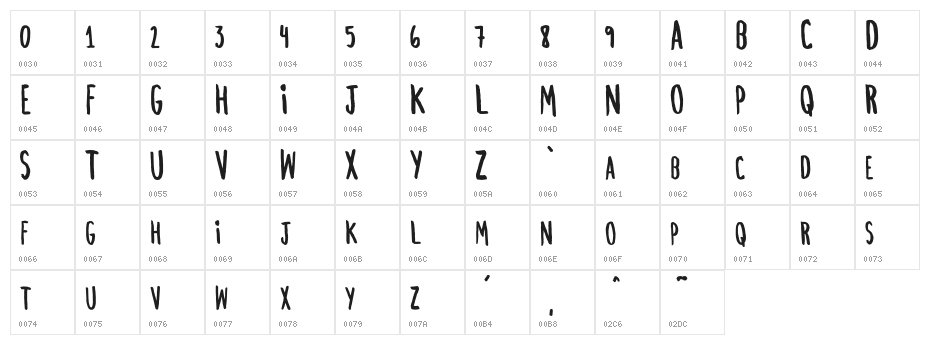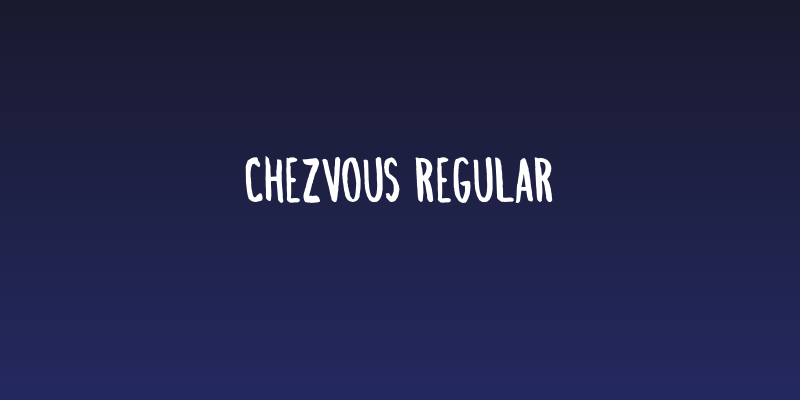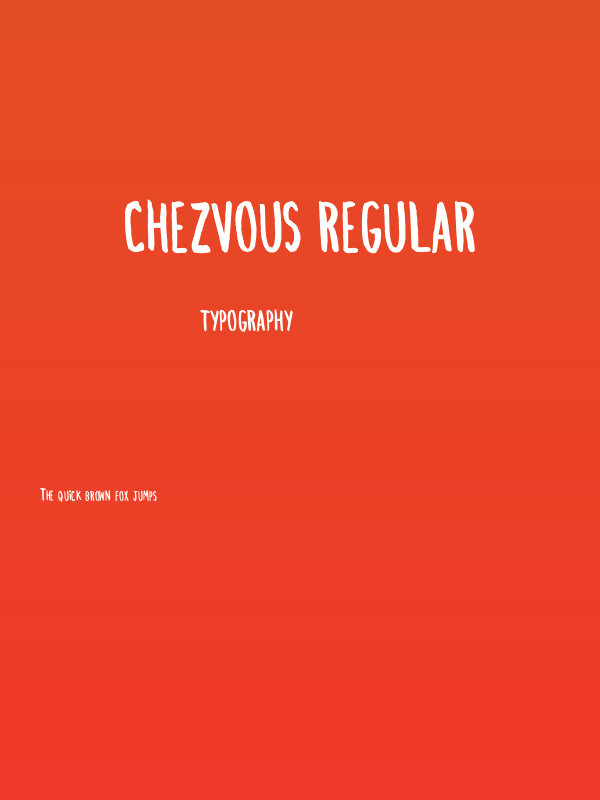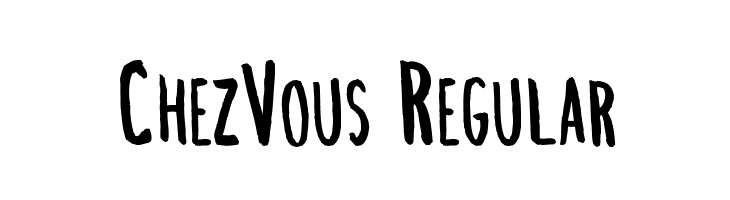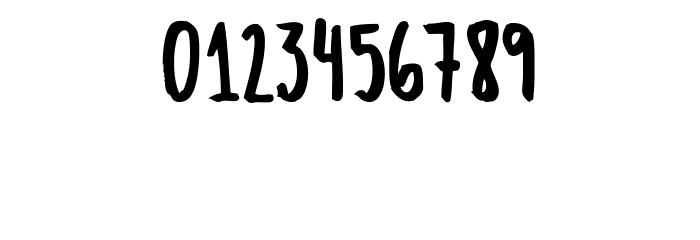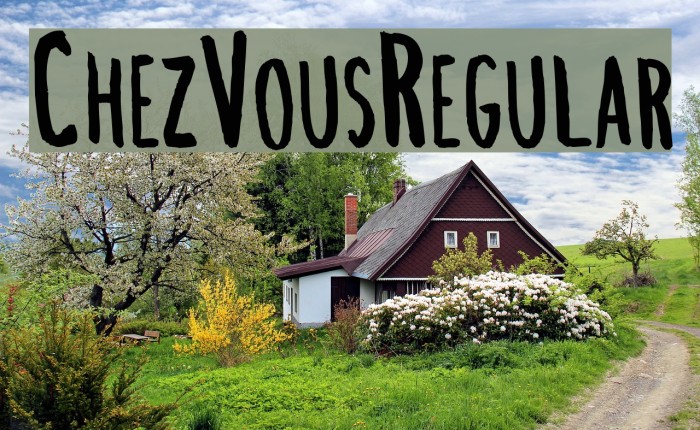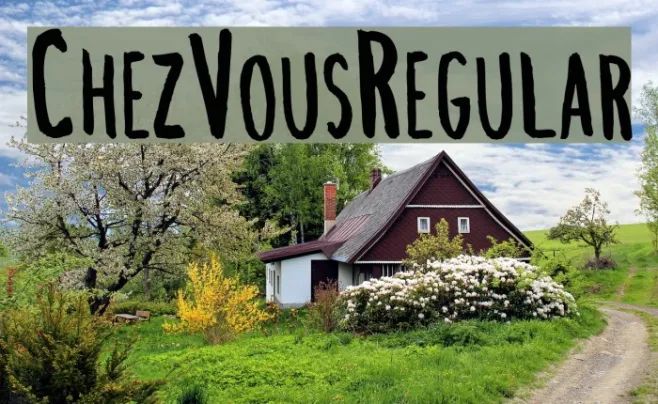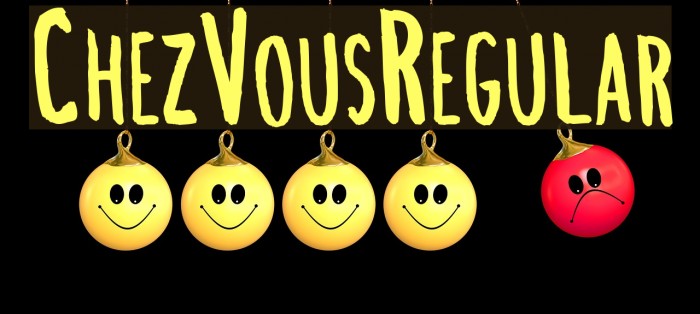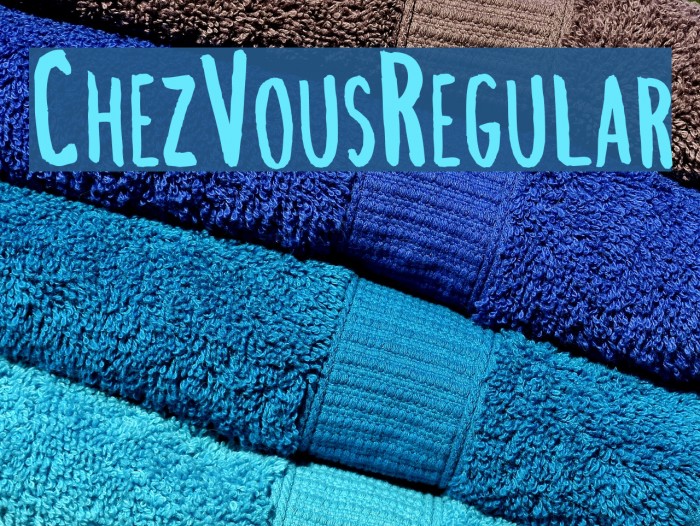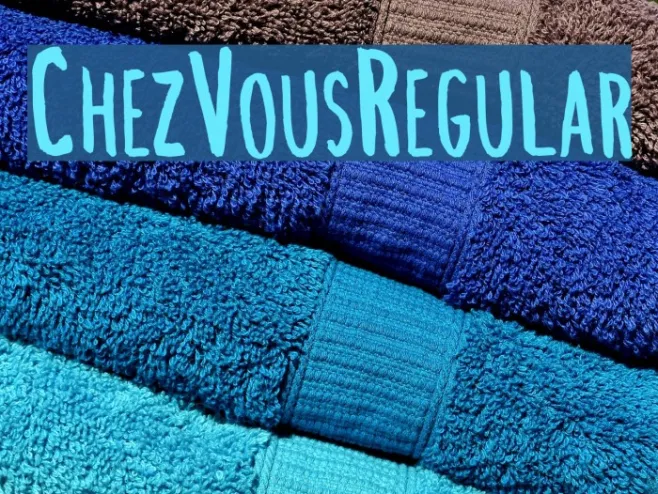
ChezVous-Regular Font
ChezVous-Regular Description
This font features a bold, hand-drawn style with a playful and artistic flair. The characters are slightly irregular, giving it a natural and organic feel. The strokes are thick and uneven, adding to its casual and informal appearance. The uppercase and lowercase letters maintain a consistent style, with rounded edges and a slightly condensed form. The numerals and special characters follow the same design, ensuring uniformity across all elements. This font is ideal for projects that require a personal touch or a creative, whimsical vibe.
| Proposed Projects | Ideal for greeting cards, posters, children's books, and creative branding. |